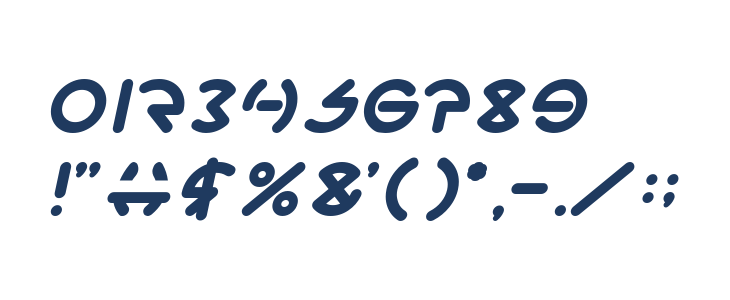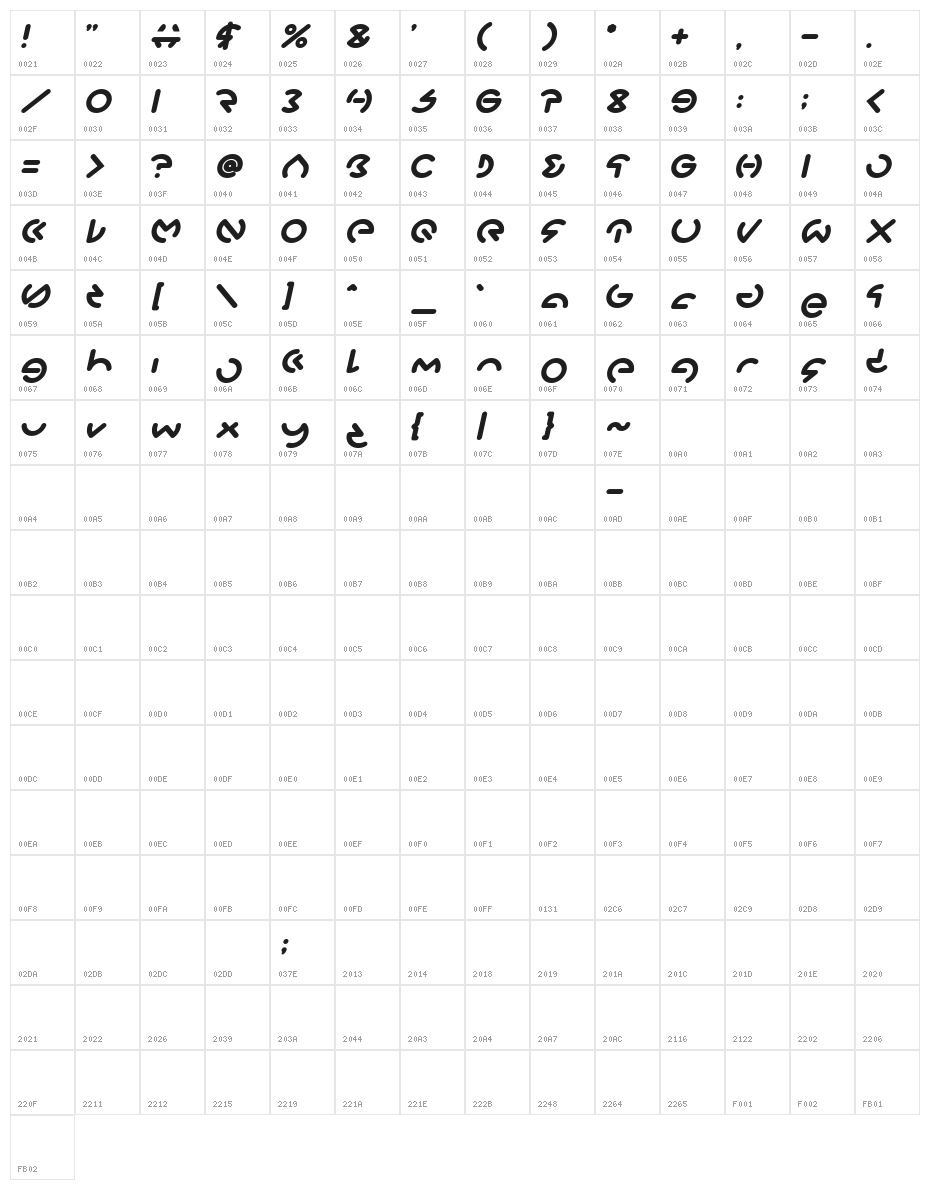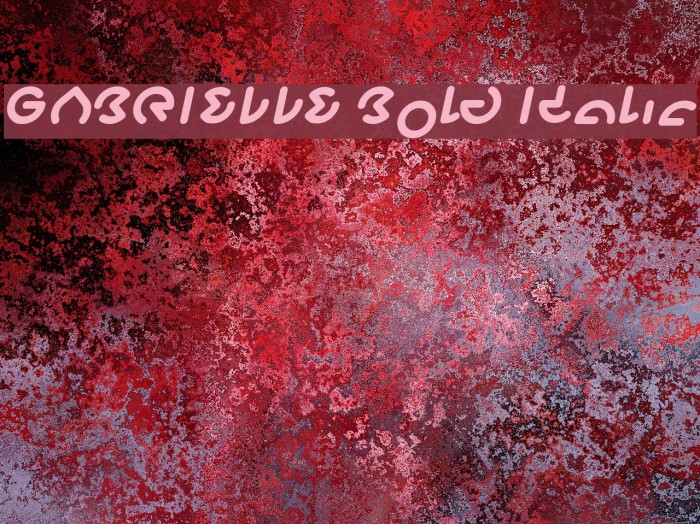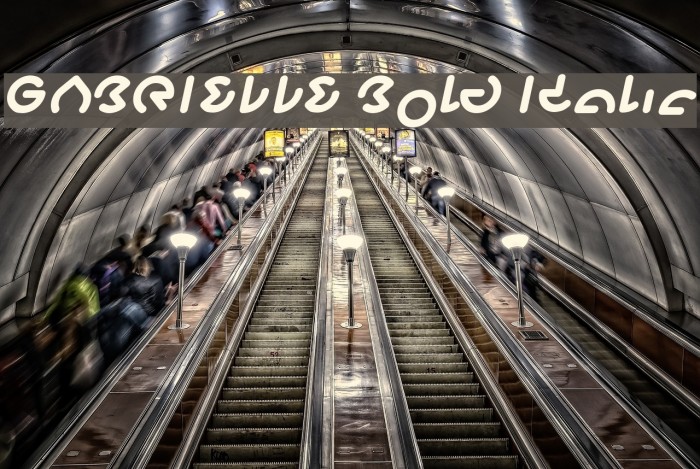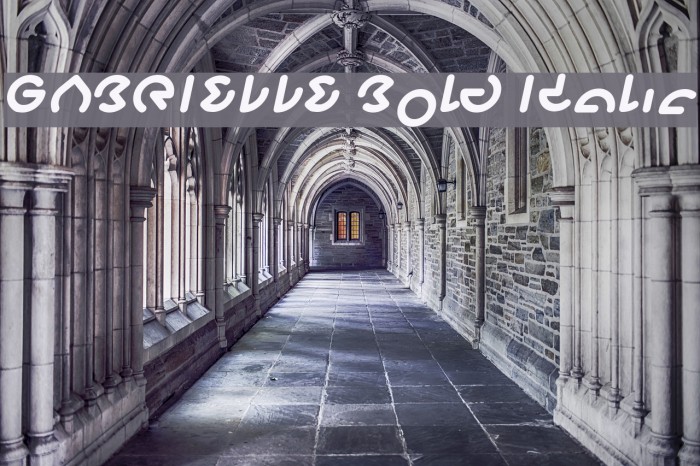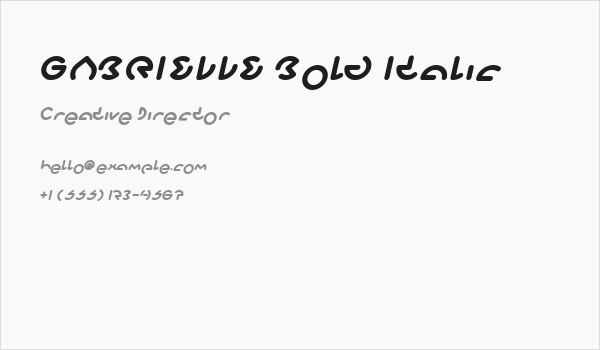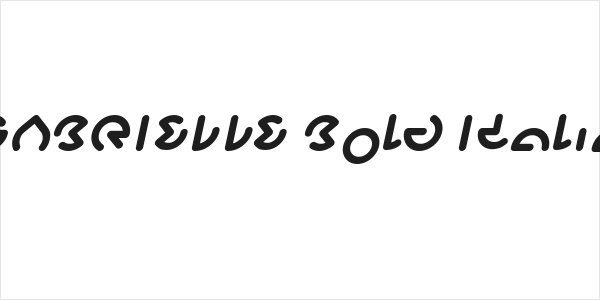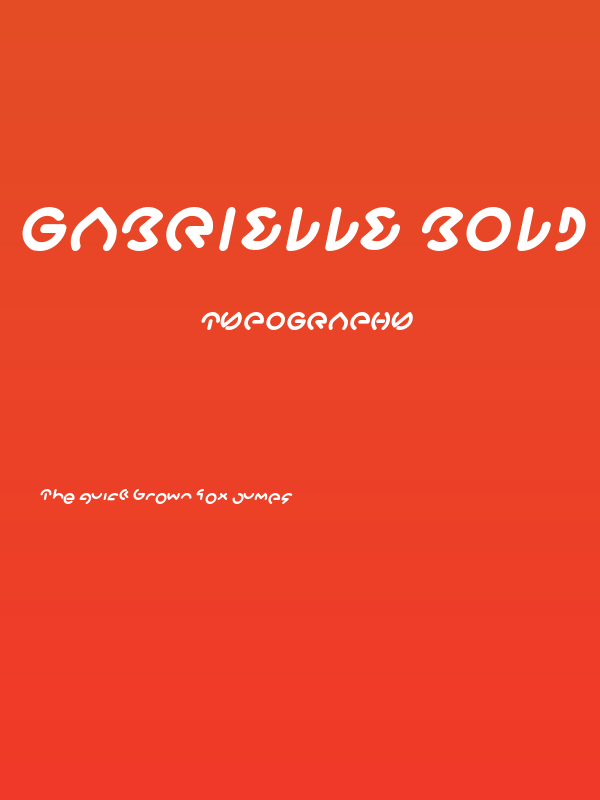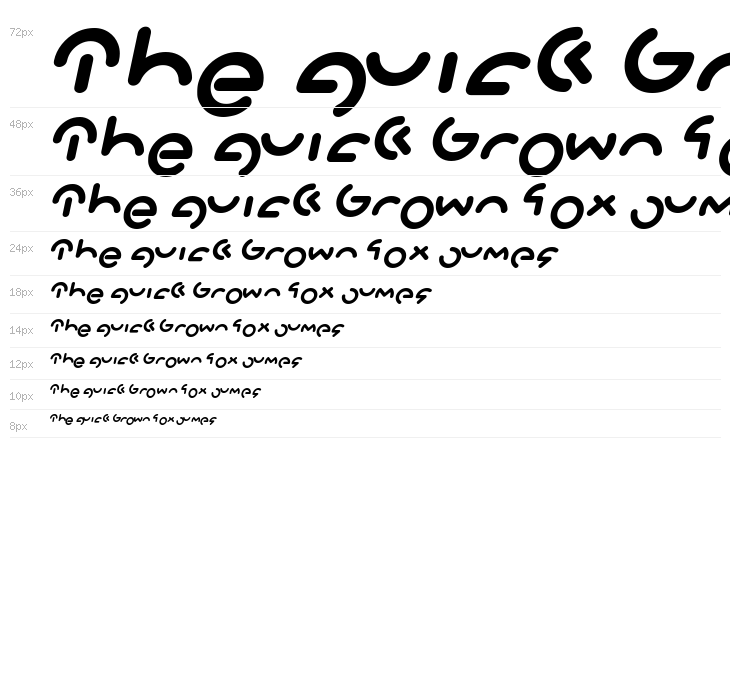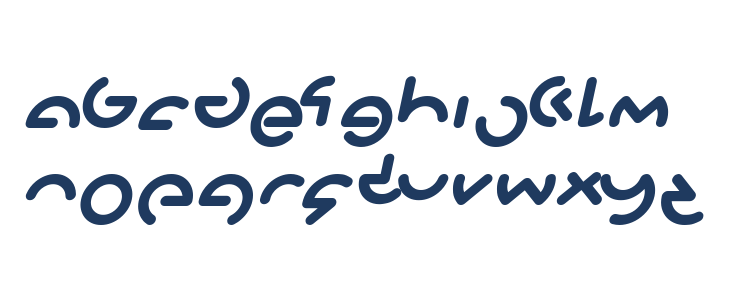
GABRIELLE Bold Italic Font
GABRIELLE Bold Italic Description
This font features a bold and italicized style with a unique, rounded appearance. The characters are thick and have a playful, almost whimsical quality, making them stand out. The strokes are consistent in width, giving the font a uniform look, while the italic slant adds a dynamic feel. The rounded edges and smooth curves contribute to its friendly and approachable aesthetic. This font is highly legible, even at smaller sizes, due to its clear and distinct letterforms. The numbers and special characters maintain the same bold and rounded characteristics, ensuring consistency across all glyphs.
| Overall Style | Playful, Modern |
| Proposed Projects | Ideal for children's books, playful branding, posters, and creative projects that require a fun and approachable typeface. |